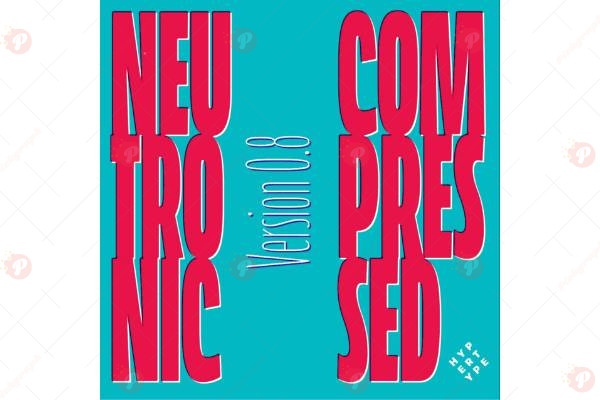
The Neutronic Compressed Font Free is a sleek futuristic sans serif typeface designed with a narrow and condensed structure. Its modern geometric design makes it a perfect choice for technology branding, sci-fi posters, digital products, sports graphics, and modern advertising.
With its clean edges and strong alignment, this font ensures maximum readability while maintaining a tech-inspired aesthetic. Whether you are designing for web interfaces, product packaging, game titles, or startup branding, the Neutronic Compressed Font Free will add a powerful futuristic touch to your work.
• Typeface: Sans Serif / Compressed / Futuristic
• Style: Modern / Tech / Narrow / Bold
Bring innovation to your designs with the Neutronic Compressed Font Free – where modern style meets futuristic clarity. 🚀